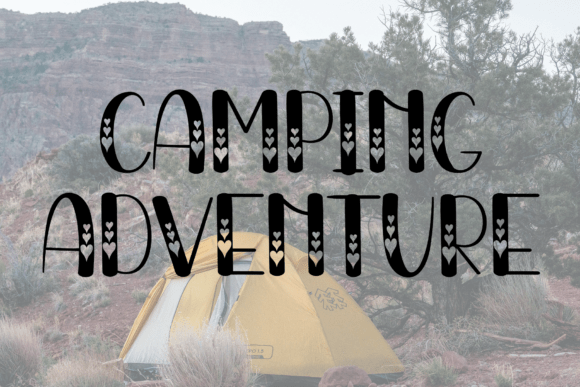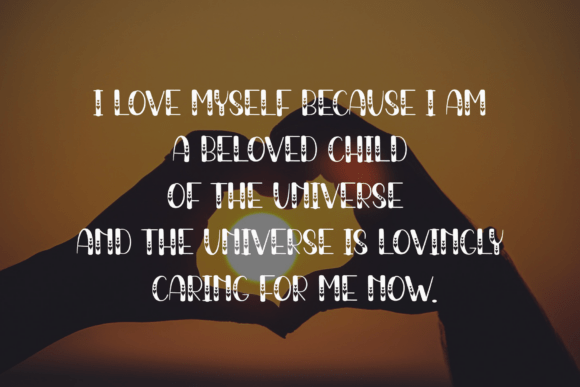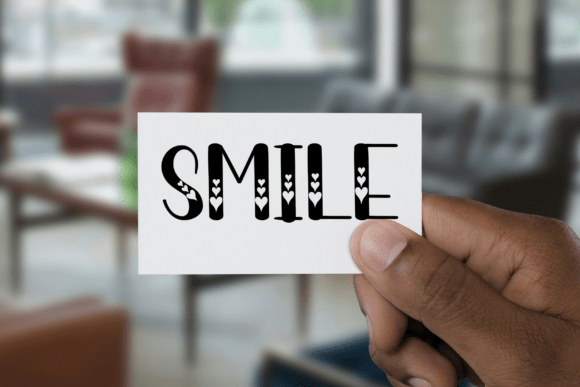
Introduction to Litle Princess Font
As a designer, there’s nothing quite like the thrill of bringing a creative project to life. You’ve poured your heart and soul into every detail, and the final result is nothing short of magical. But sometimes, the perfect font can make all the difference. That’s where the enchanting Litle Princess Font comes in – a festive and merry typeface that captures the spirit of the holiday season like no other.
Whether you’re working on a holiday greeting card, gift tag, or festive design, this font adds a touch of whimsy and wonder to your words. With its decorative elements and high-quality design, it’s the perfect addition to any creative project. And the best part? It’s PUA encoded, making it easy to access all the amazing glyphs and ligatures with just a few clicks.
Key Features of Litle Princess Font
- High-quality design for creative projects: Litle Princess Font is perfect for designers and artists looking for a unique and elegant font to use in their designs.
- Transparent background: This font features a transparent background, making it easy to use on any design or project without worrying about background colors.
- High-resolution design: With a resolution of 300 DPI, Litle Princess Font is perfect for printing and using in high-quality designs.
- Unique and elegant design: This font features a unique and elegant design, making it perfect for creative projects such as wedding invitations, birthday cards, and more.
- Perfect for design resource: Litle Princess Font is a great addition to any designer’s resource library, offering a high-quality and unique font for use in various creative projects.
Honest Review: Litle Princess Font
Here are the things that work well for the Litle Princess Font:
- ✨ High quality design: The font is beautifully crafted with smooth lines and elegant curves.
- ✨ Variety of styles: The font comes in multiple styles, including regular, bold, and italic, which makes it versatile for different design needs.
- ✨ Transparent background: This feature allows for seamless integration with images or other design elements.
- ⚠️ Limited character set: The font only includes a limited set of characters, which may not be sufficient for complex designs or languages with unique character sets.
Overall, I was impressed with the Litle Princess Font’s design quality, but I would caution designers to be aware of its limitations before using it for a high-stakes design project.
In Adobe Photoshop or Illustrator, open a new document and select the Litle Princess Font from the font menu. You can use it to create custom graphics, logos, or text overlays. The font’s high quality ensures that it looks great at any size.
To use the Litle Princess Font in PowerPoint or Word, select the font from the font menu and apply it to your text. You can use it for presentations, reports, or other documents where a creative touch is needed.
Experiment with different font sizes, colors, and layering techniques to get the most out of the Litle Princess Font. You can also pair it with other fonts or design elements to create a unique look.
The Litle Princess Font is ideal for creative projects such as invitations, social media graphics, posters, logos, and text overlays. Its transparent background makes it easy to layer with other design elements, making it a versatile design resource.
Does the Litle Princess Font have a transparent background?
Yes, the Litle Princess Font has a transparent background, making it ideal for use in creative projects that require a high level of design flexibility. The font’s transparent background allows you to easily layer it over images or other design elements without the need for additional editing.